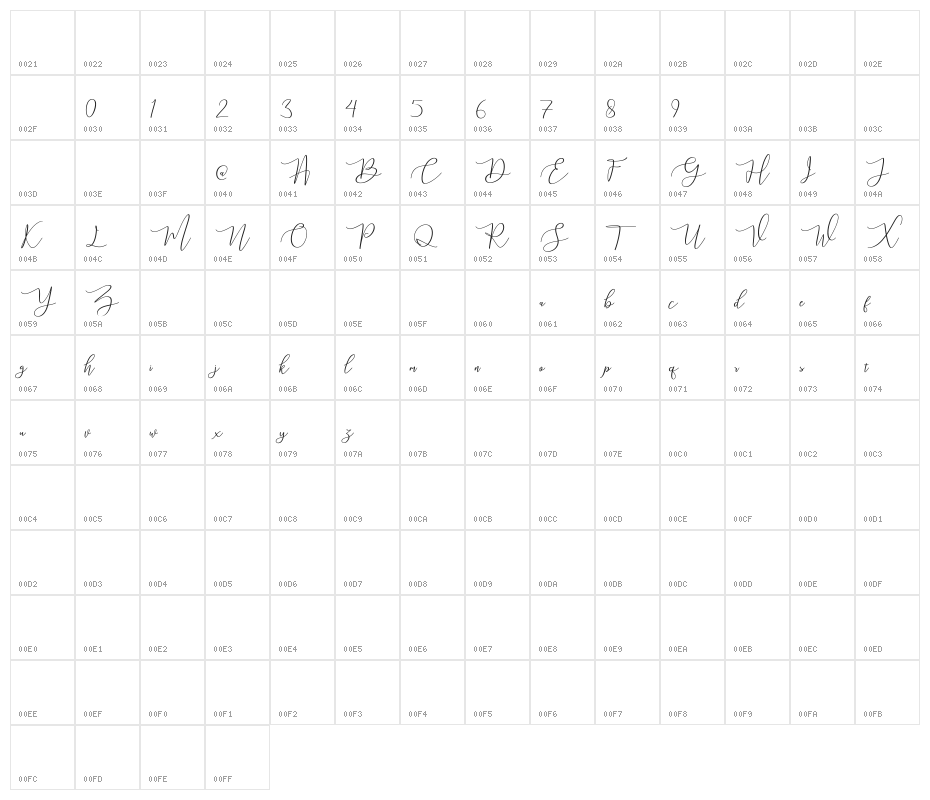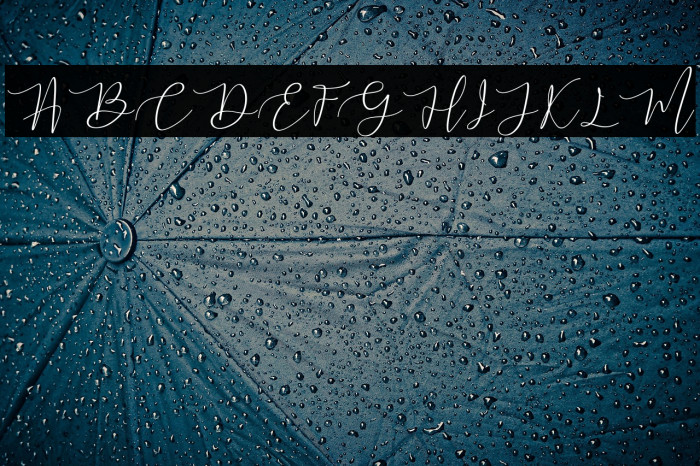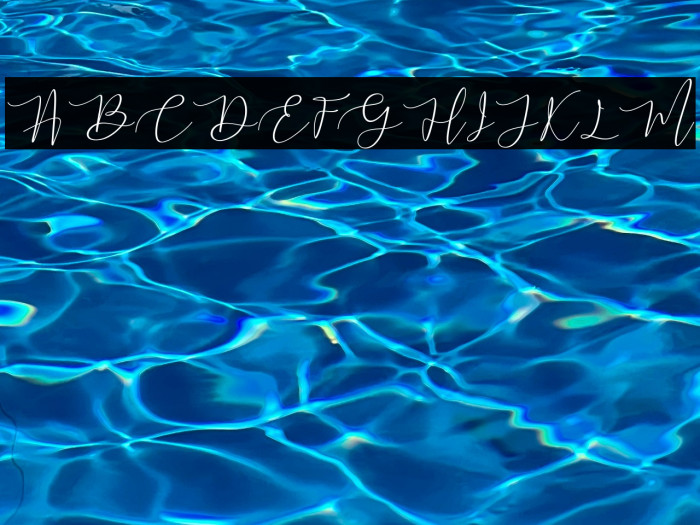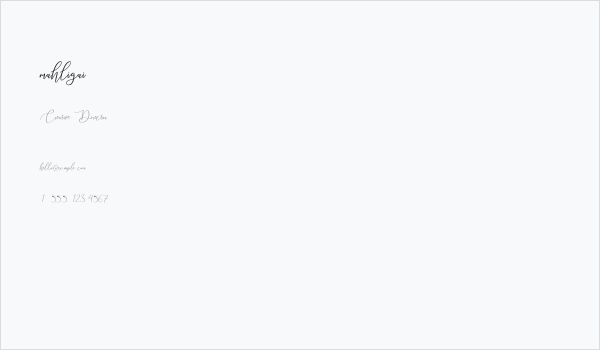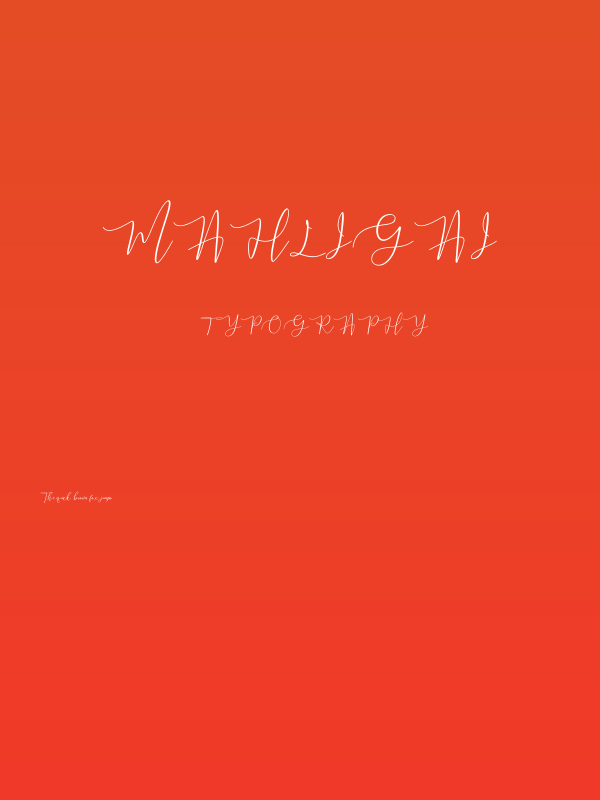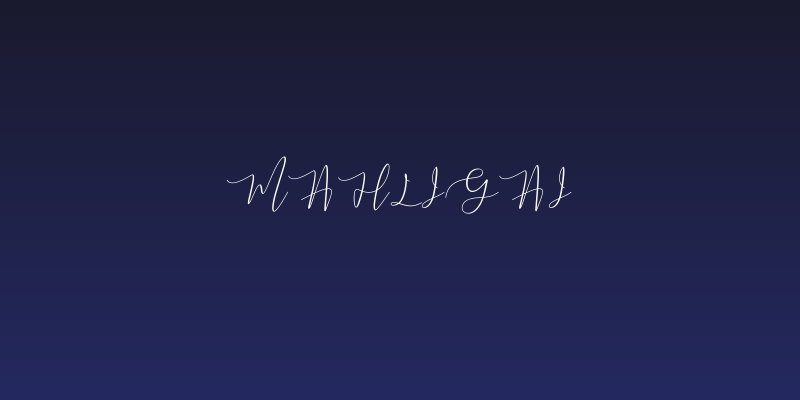
mahligai Font
mahligai Description
This elegant script font features a flowing, cursive style with a modern twist. The uppercase letters are characterized by their graceful loops and swirls, giving them a sophisticated and artistic appearance. The lowercase letters maintain a consistent flow, with some letters featuring unique flourishes that add to the font's charm. The numerals are distinct and easy to read, while still maintaining the overall aesthetic of the font. This font is perfect for projects that require a touch of elegance and creativity, such as wedding invitations, branding, and decorative designs.
| Overall Style | Elegant, Modern |
| Use Case | Headlines, Logos, Decorative text |
| Proposed Projects | Wedding invitations, branding, decorative designs, greeting cards, and logos. |